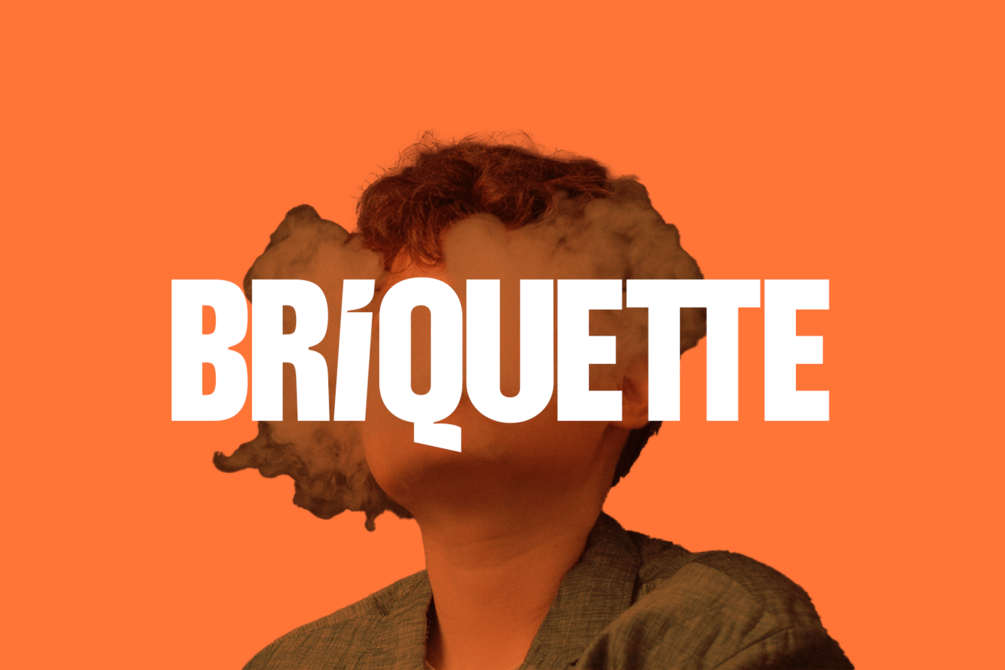
Briquette Display Typeface
Introducing Briquette Display new generation Typeface created for building brand identity. Briquette Typeface created with the vision of to attract the audience to your brand . The finest details of this typeface are methodically and mathematically created.
Briquette is created with all the tasks of a corporate font and also for the usage in a variety of projects, including branding, logos, titles, headlines, servers, posters, screens, display, digital ads, and everything else. TTF, OTF, WOFF, WOFF2, EOT Files are included in the zip.